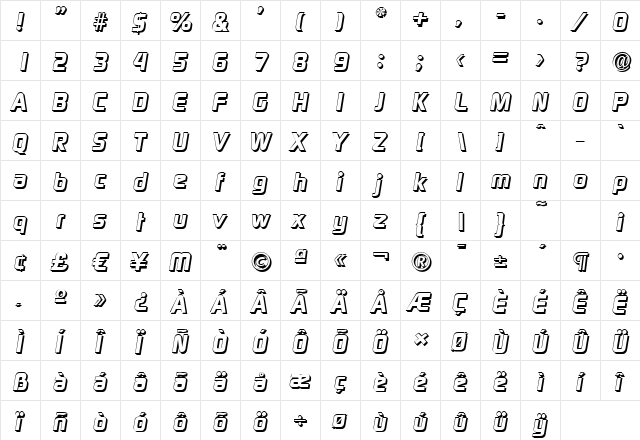
RandyBeckerShadow-ExtraBold Italic Font Preview
Design Context for RandyBeckerShadow-ExtraBold Typeface
RandyBeckerShadow-ExtraBold brings ornamental detail and strong personality to headlines and identities, where visual impact matters more than quiet functionality. The slanted form adds forward momentum and visual energy. The heavy weight commands attention and anchors typographic hierarchies.
Font Pairing: Pair with a clean neutral sans-serif for body copy to let RandyBeckerShadow-ExtraBold's character lead without overwhelming the composition.
Pro Tip: Use RandyBeckerShadow-ExtraBold exclusively at display sizes — it was designed to be seen, not read at length. Let a neutral companion handle body copy.